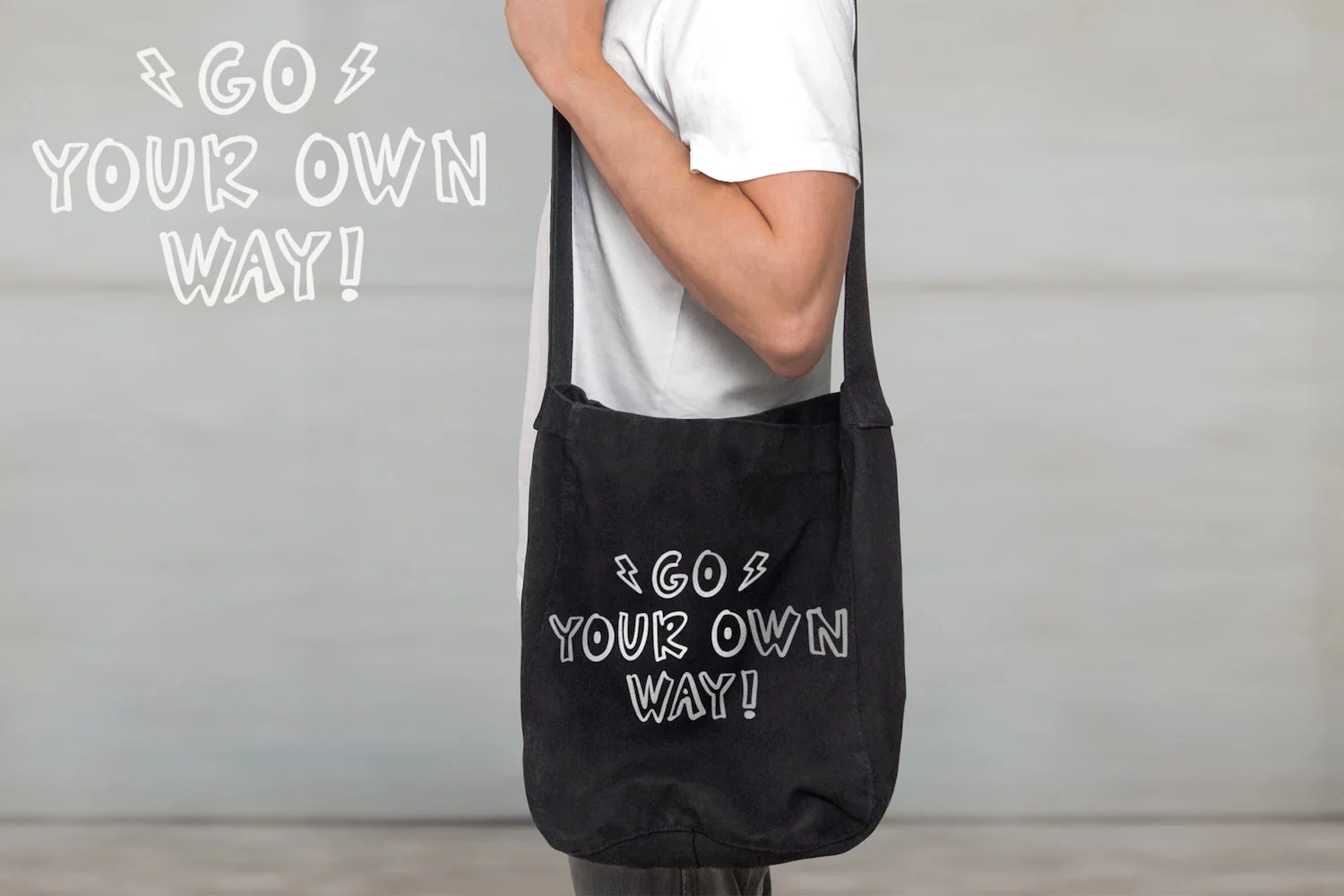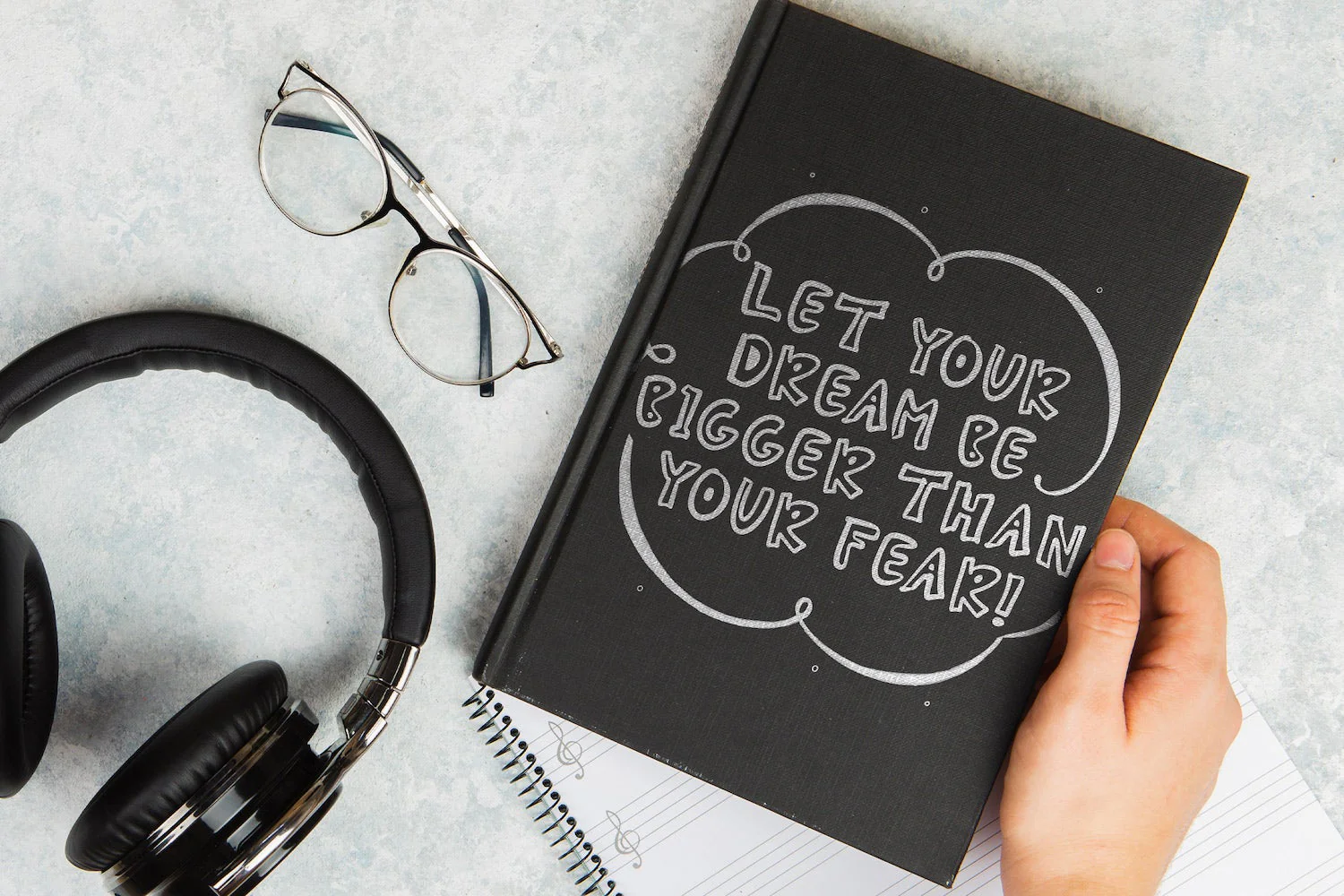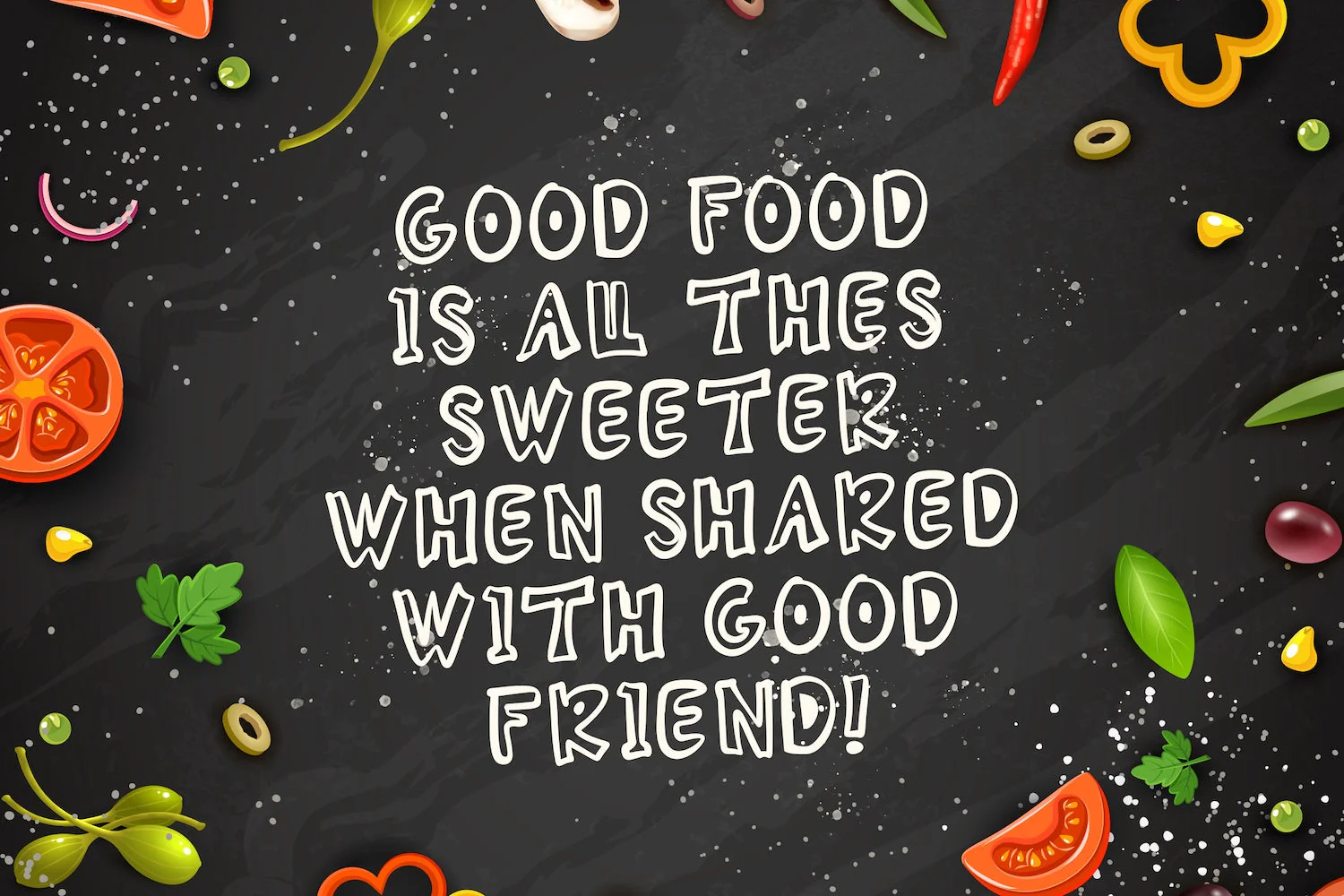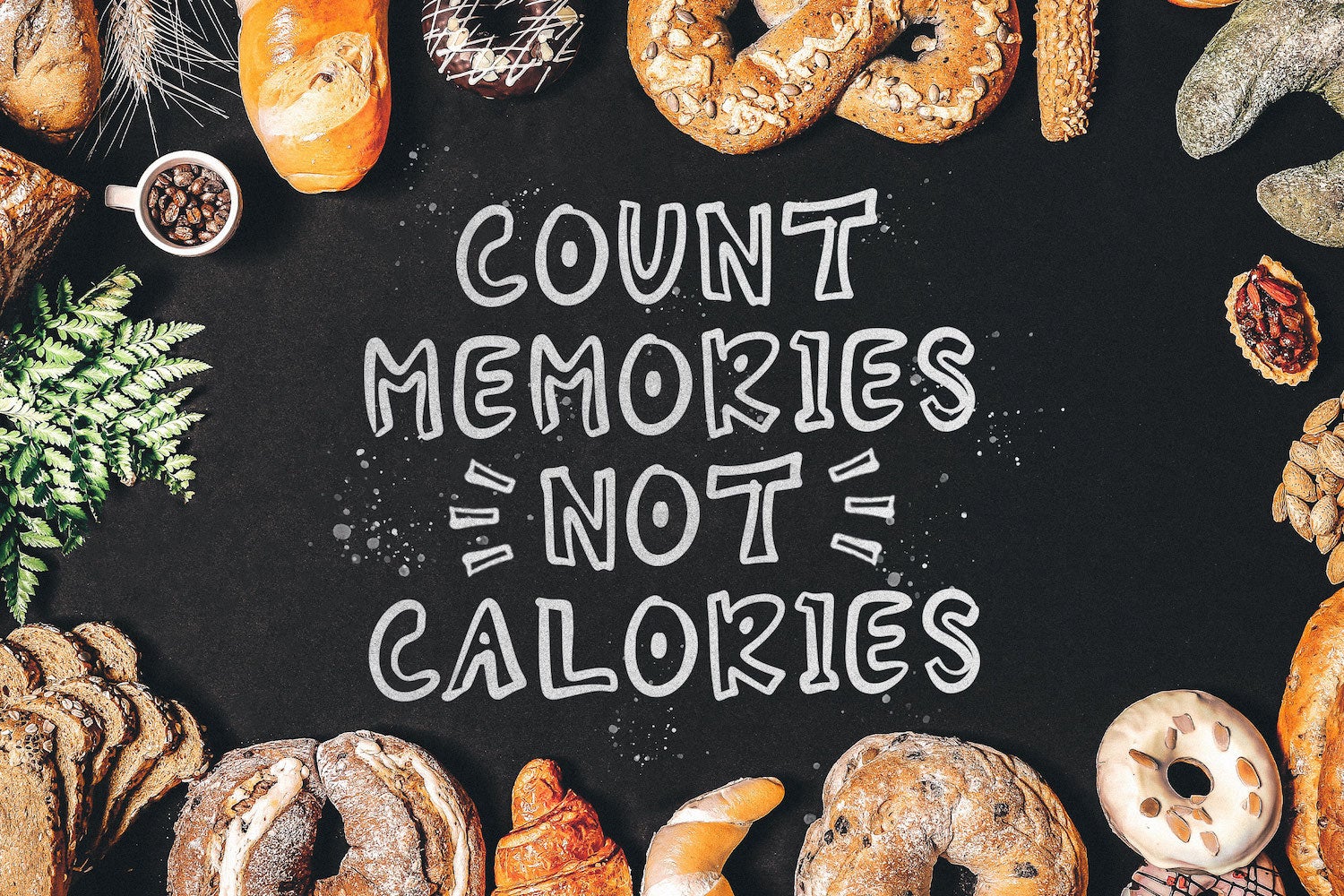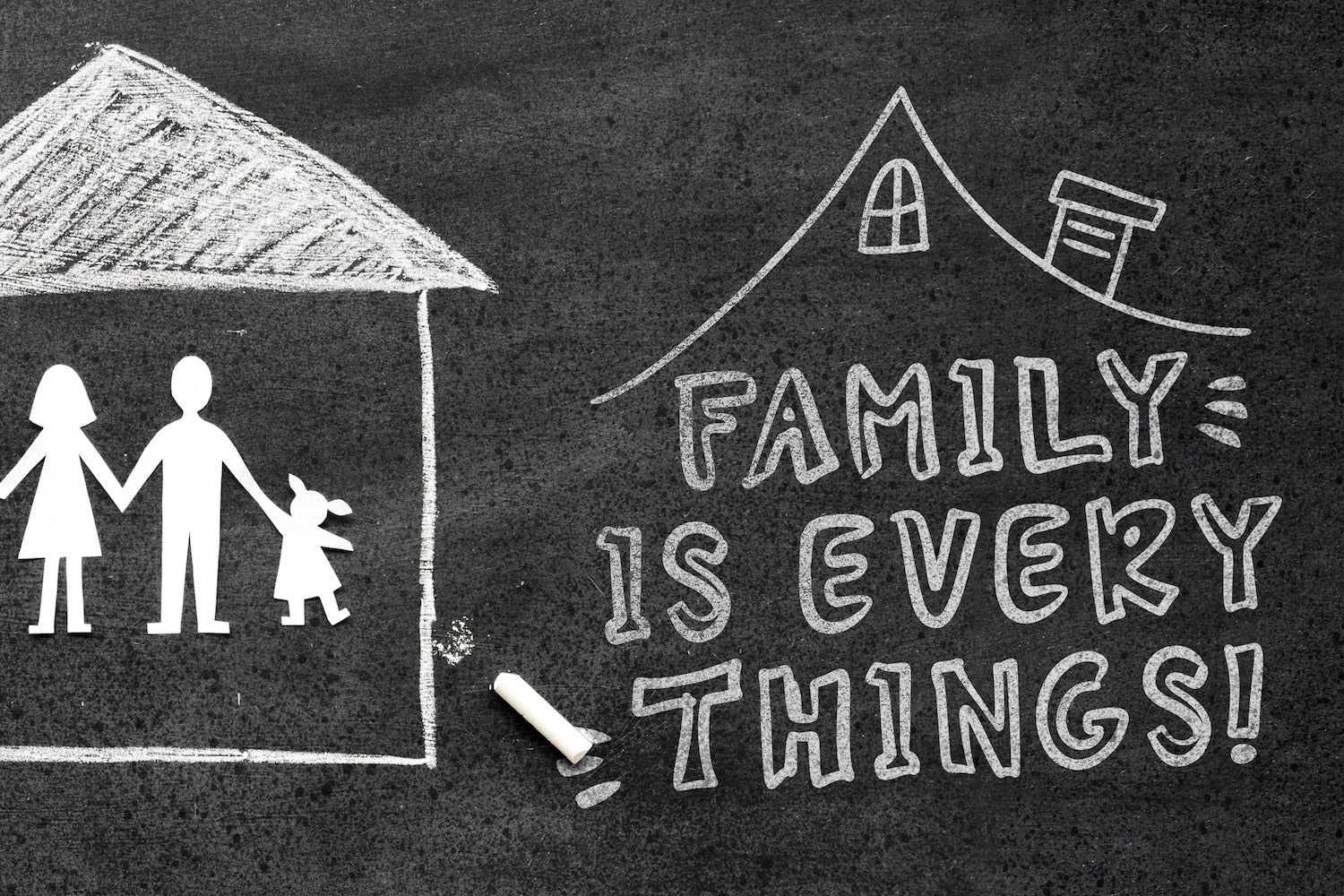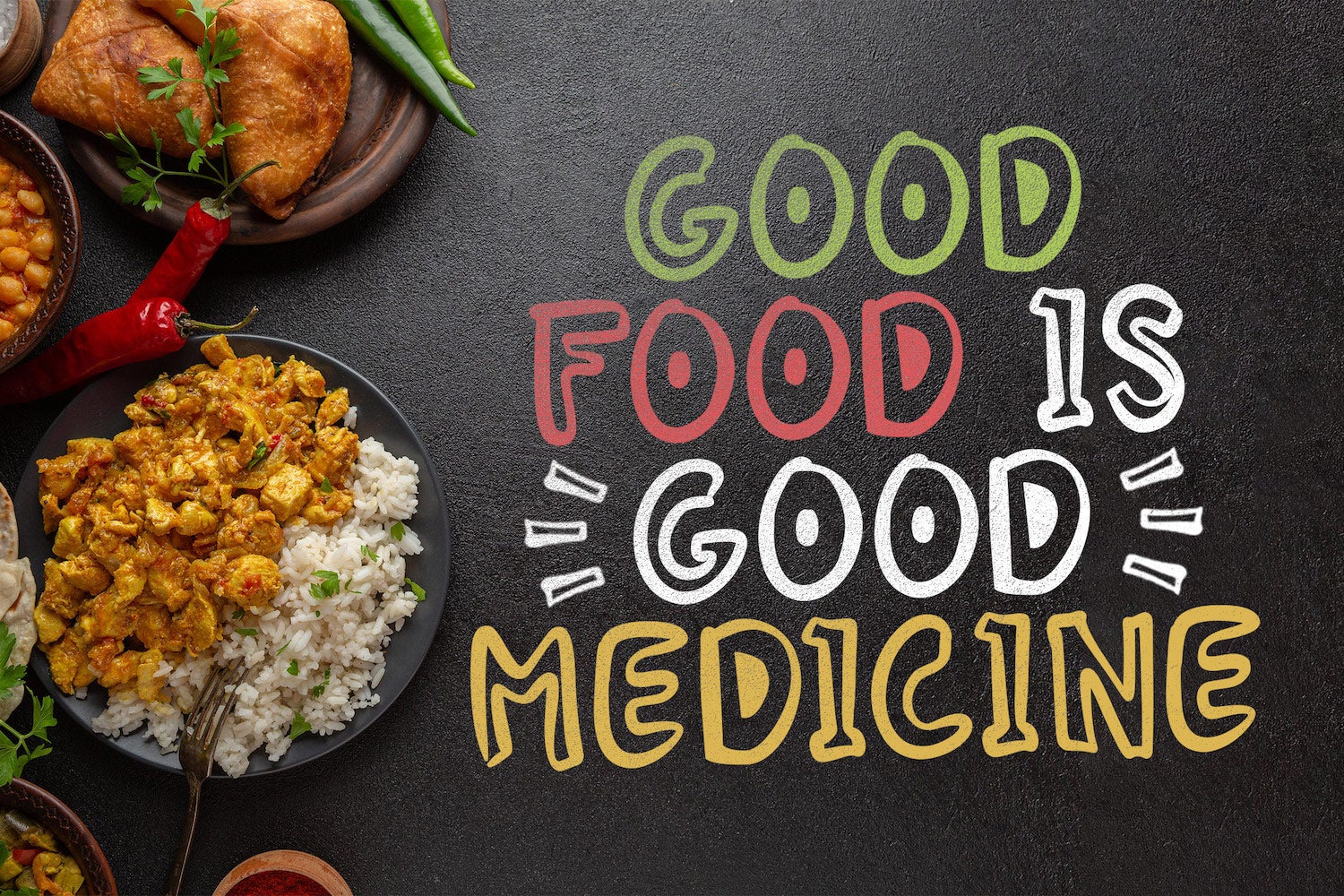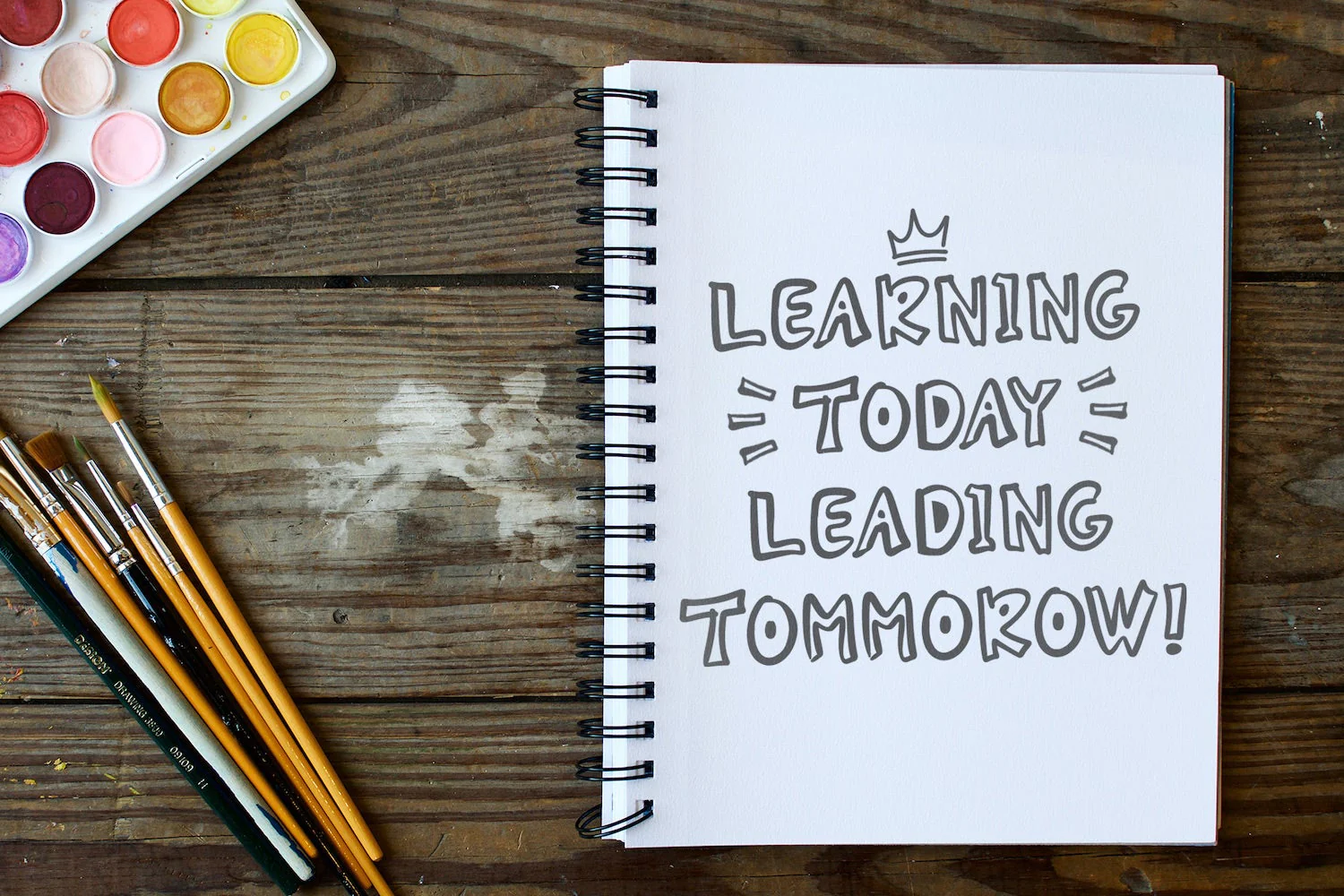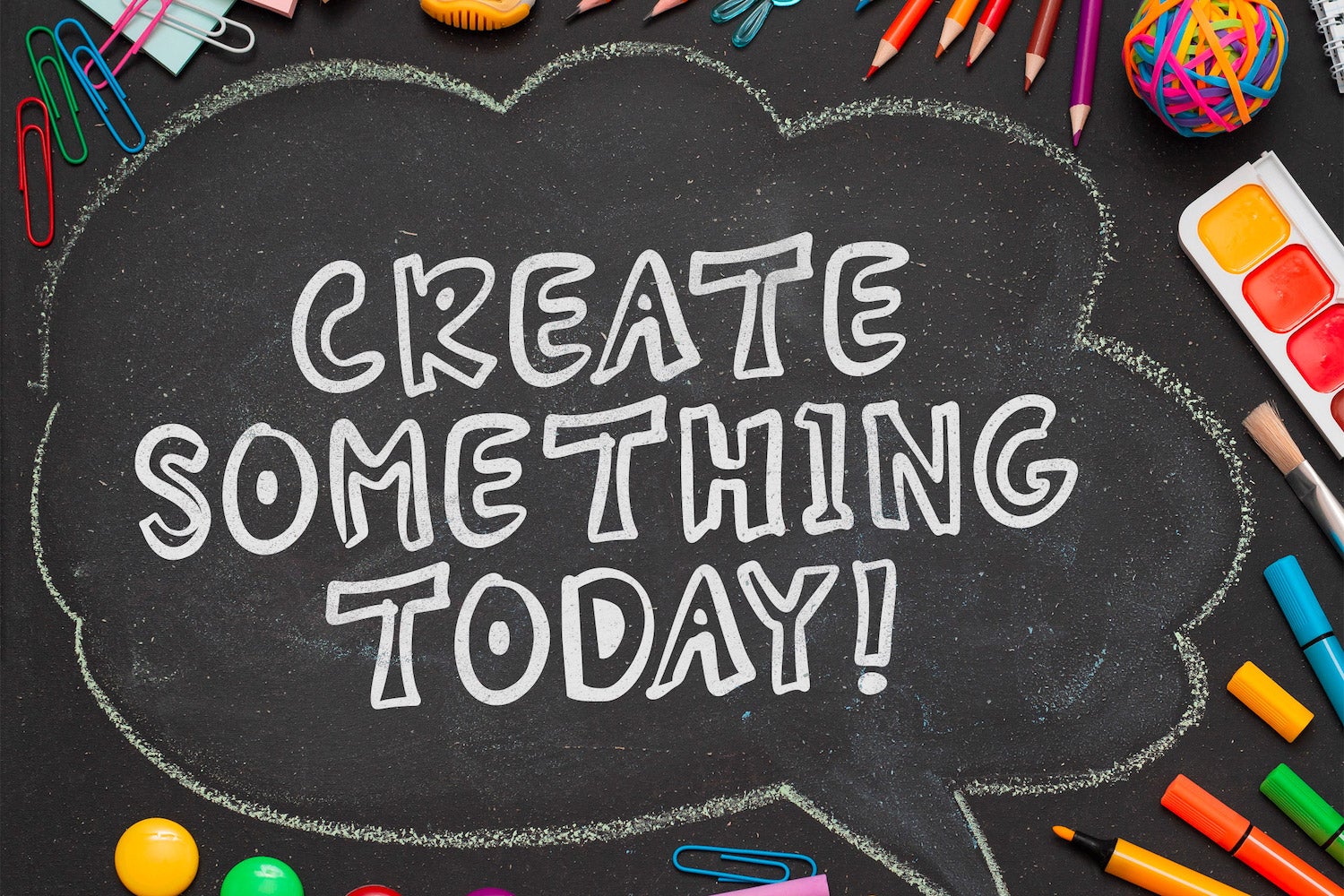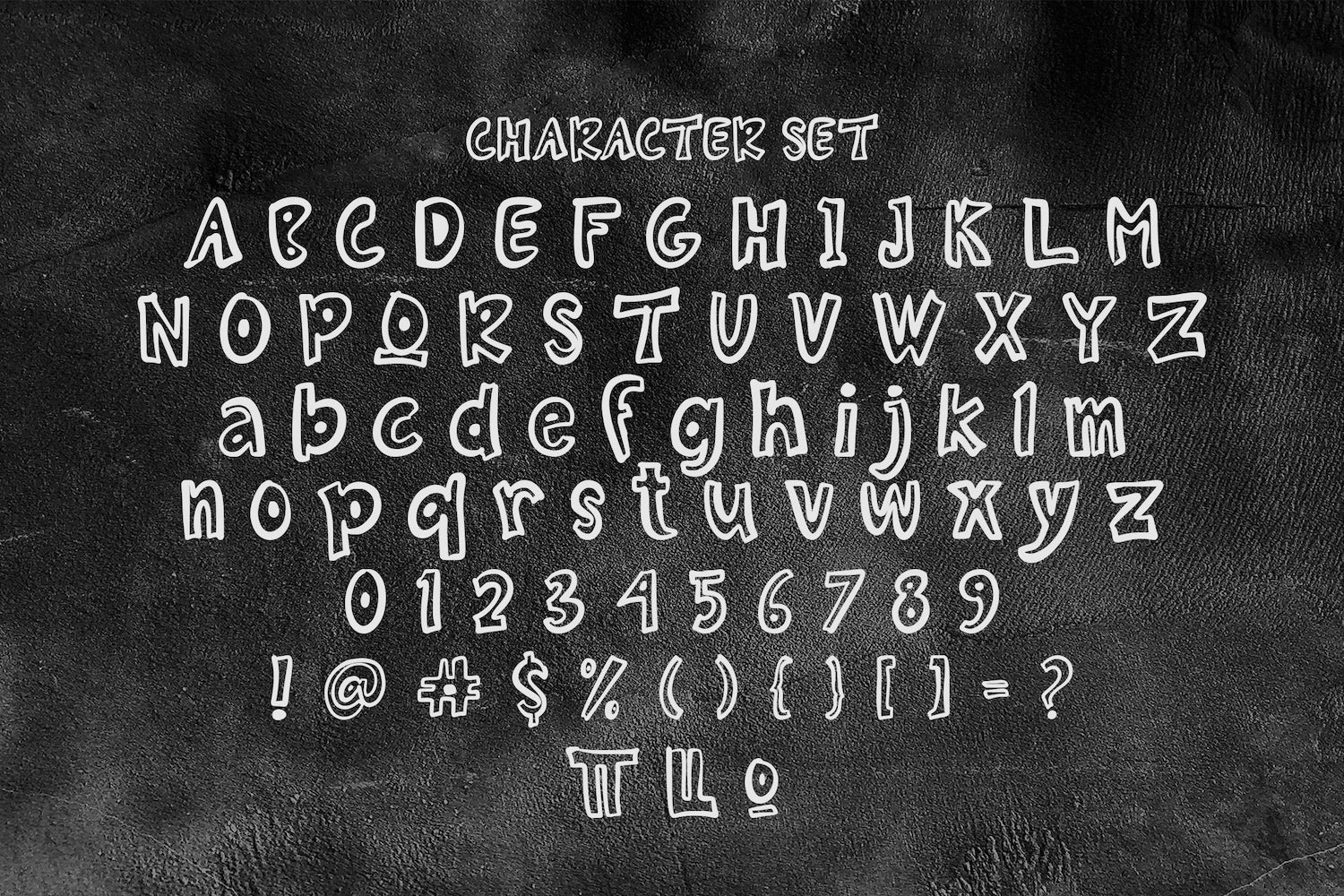
Heinzo - Playful Display Font
Introducing Heinzo - Playful Display Font
Heinzo is a fun display font. Playful and fresh, this font will be a hit for each of your children or school projects!
Introducing Heinzo - Playful Display Font
Heinzo is a fun display font. Playful and fresh, this font will be a hit for each of your children or school projects!